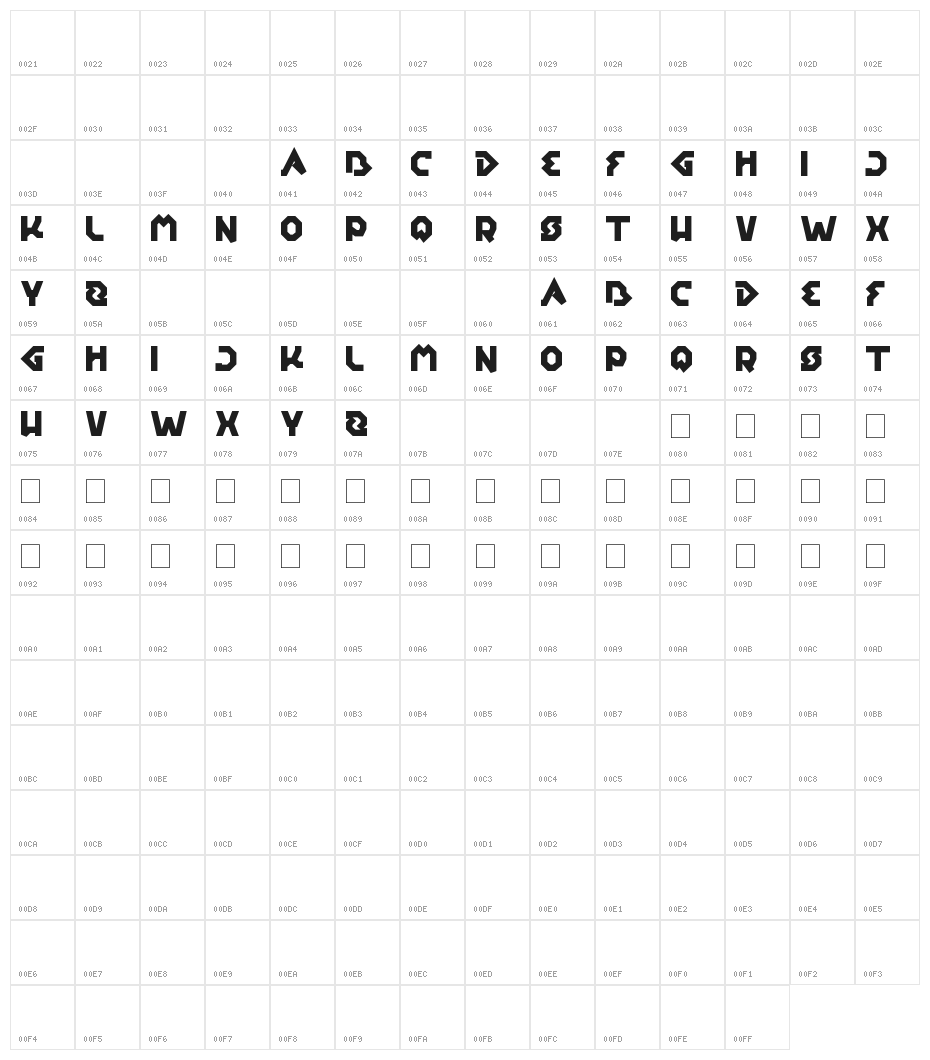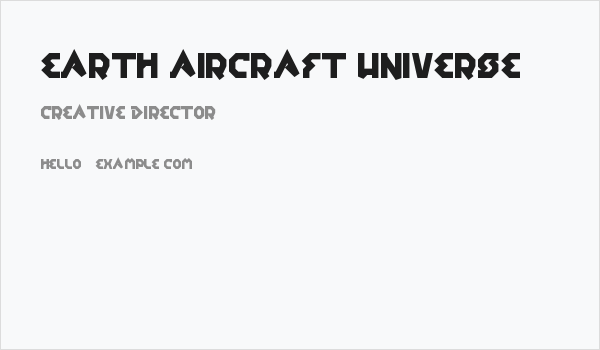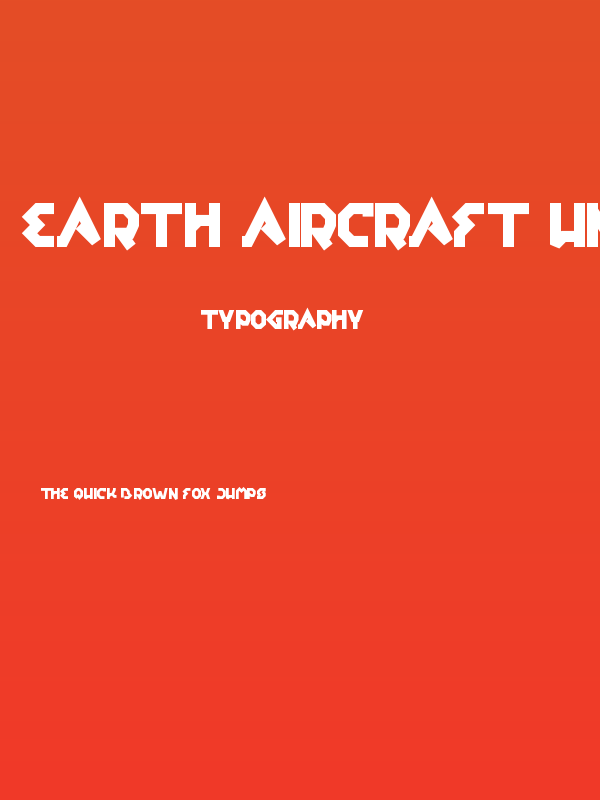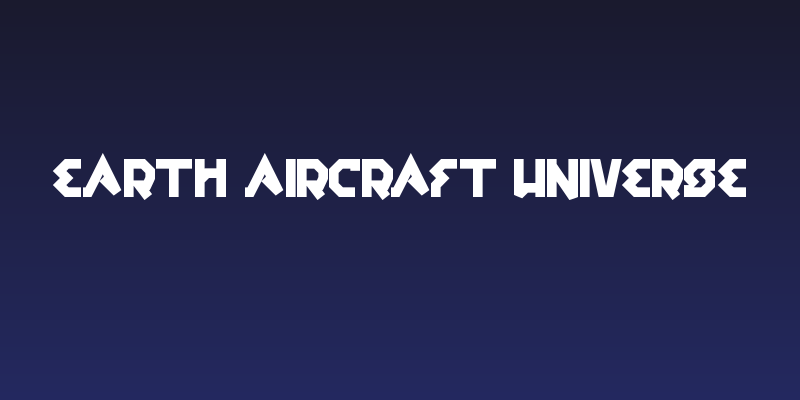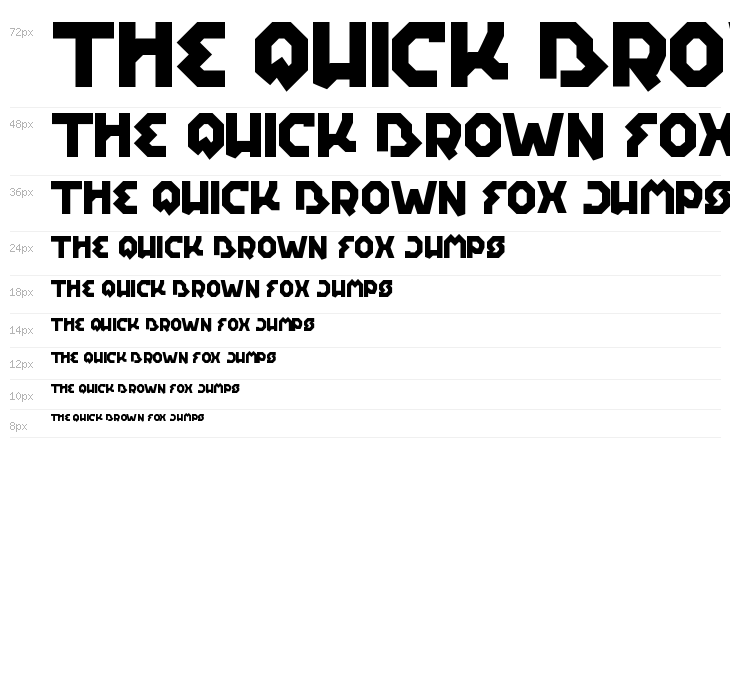
earth aircraft universe Font
earth aircraft universe Description
This font features a bold, geometric design with sharp angles and a futuristic aesthetic. The characters are constructed with a blocky, angular style, reminiscent of industrial or sci-fi themes. Each letter is distinct, with unique cuts and shapes that give the font a dynamic and edgy appearance. The uppercase letters are particularly striking, with a strong presence that commands attention. The font's design is consistent across all characters, maintaining a cohesive look that is both modern and distinctive.
| Proposed Projects | Ideal for sci-fi themed projects, video game titles, tech branding, and futuristic posters. |